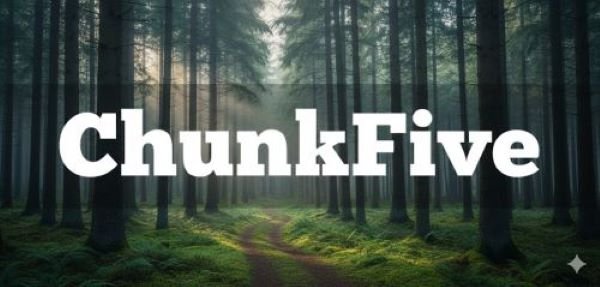
ChunkFive Font
ChunkFive is a bold slab-serif display typeface by Meredith Mandel, built for powerful attention-grabbing headlines — with thick strokes, heavy serifs, and a vintage newspaper quality that makes it perfect for posters, logos, branding, and editorial designs that need maximum strength and impact. Free for personal and commercial use.
Designer: Meredith Mandel
Style: Display Font, Bold Font